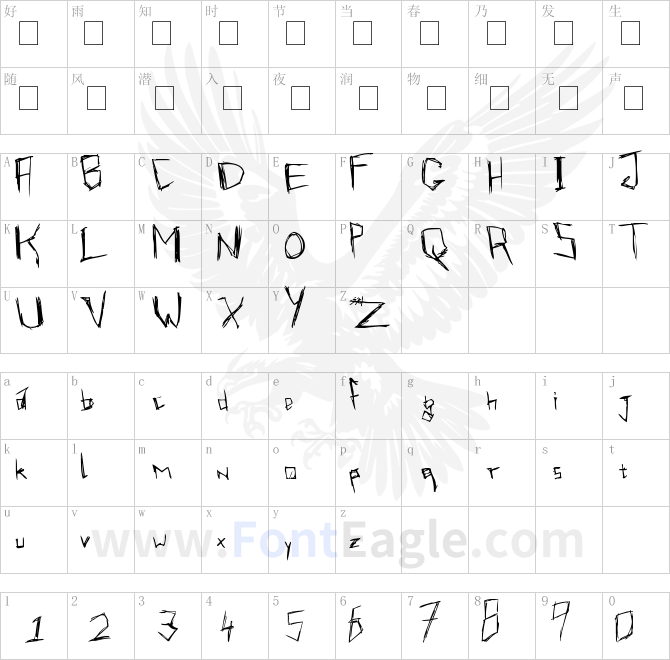
- Font name:virmeen t’kirrrl
- Font Subfamily ID:virmeen t’kirrrl V1.o
- Font Full Name:virmeen t’kirrrl
- Font Version:V1.o
- Postscript:virmeent’kirrrl
- Font Copyright:This font was created by – thespook.deviantart.com + bleedsopretty.deviantart.com